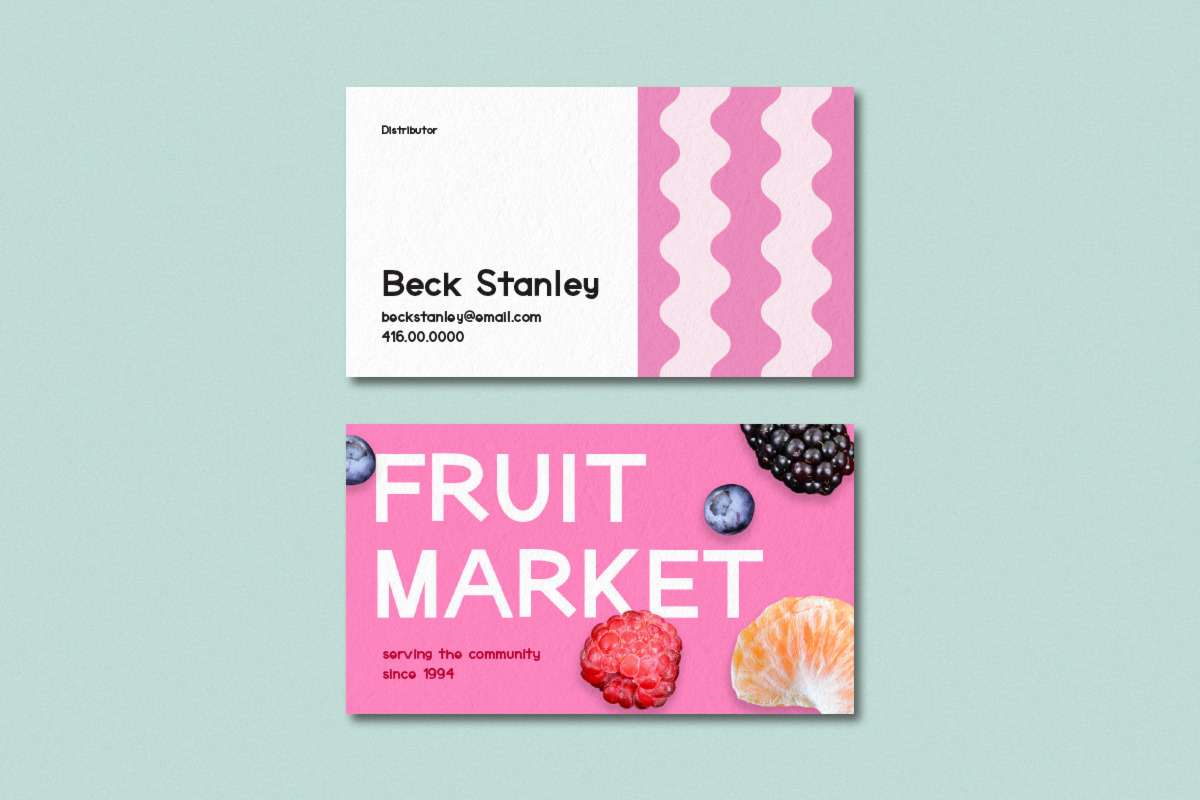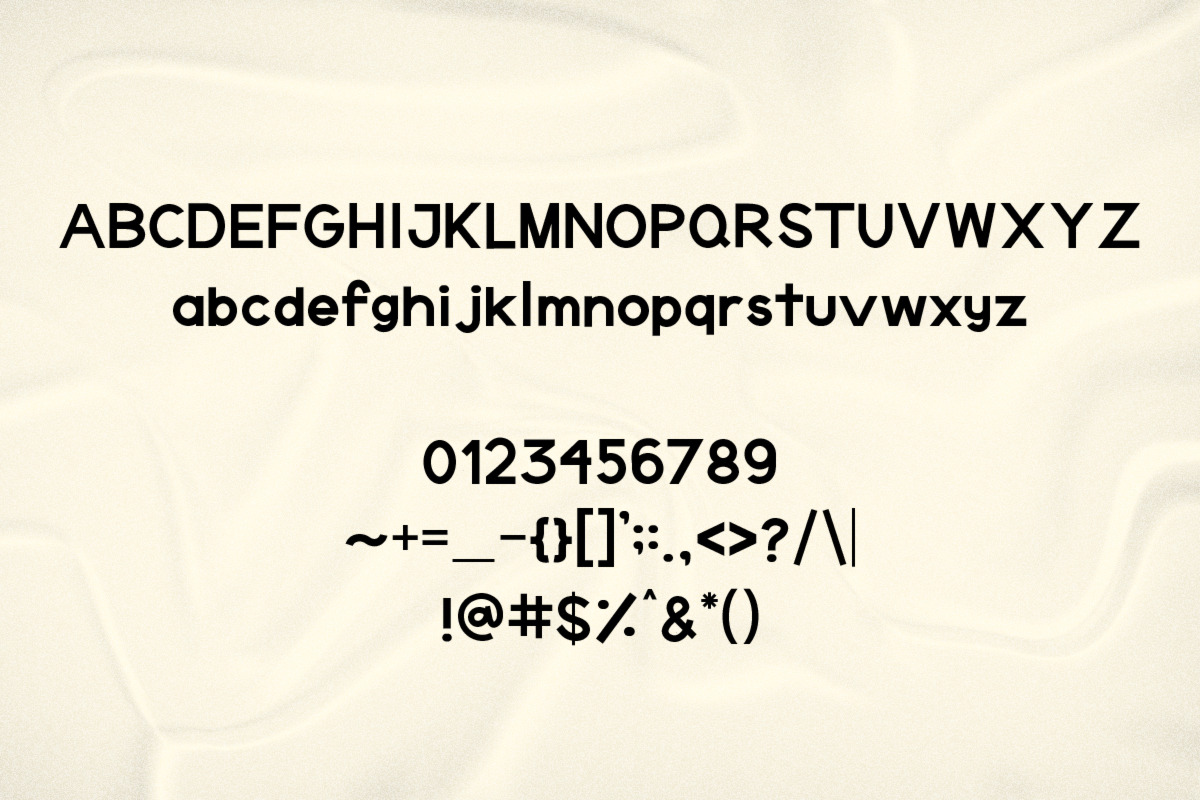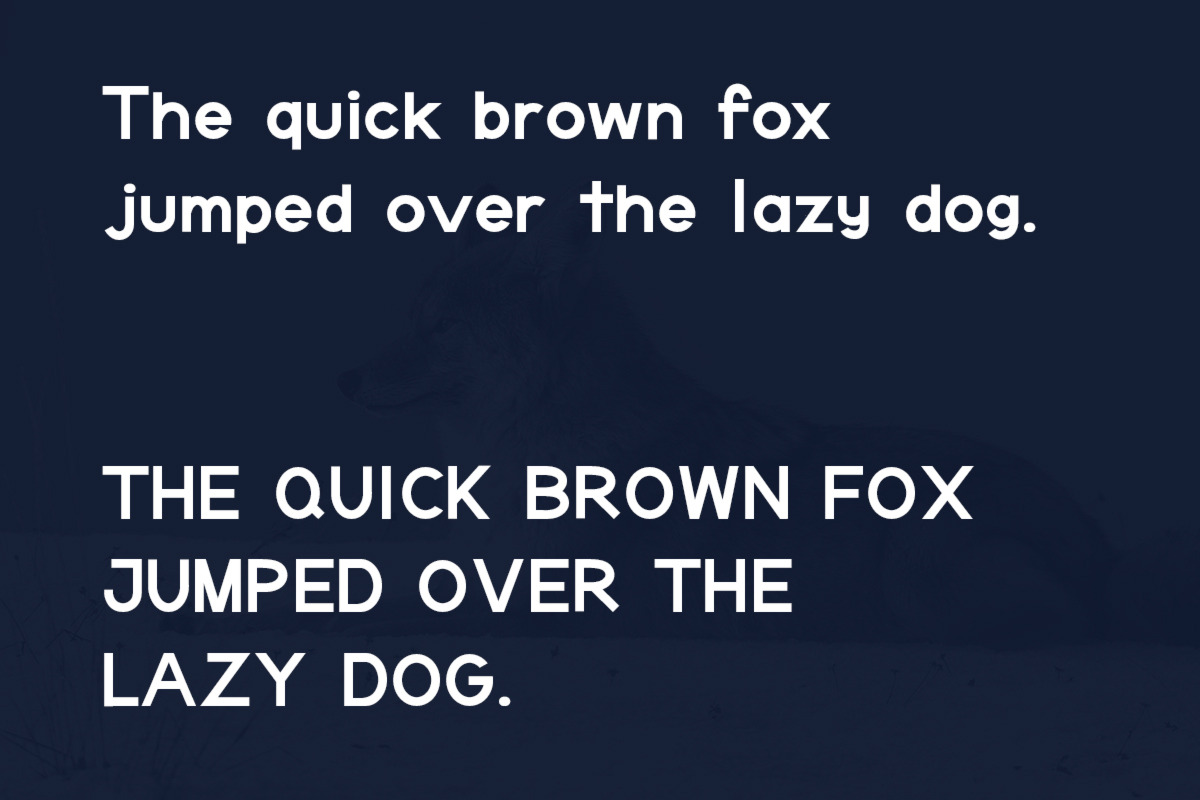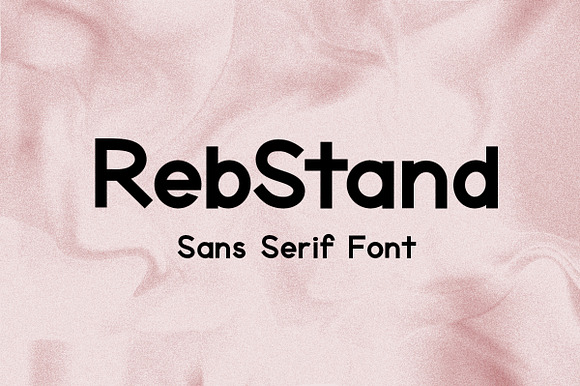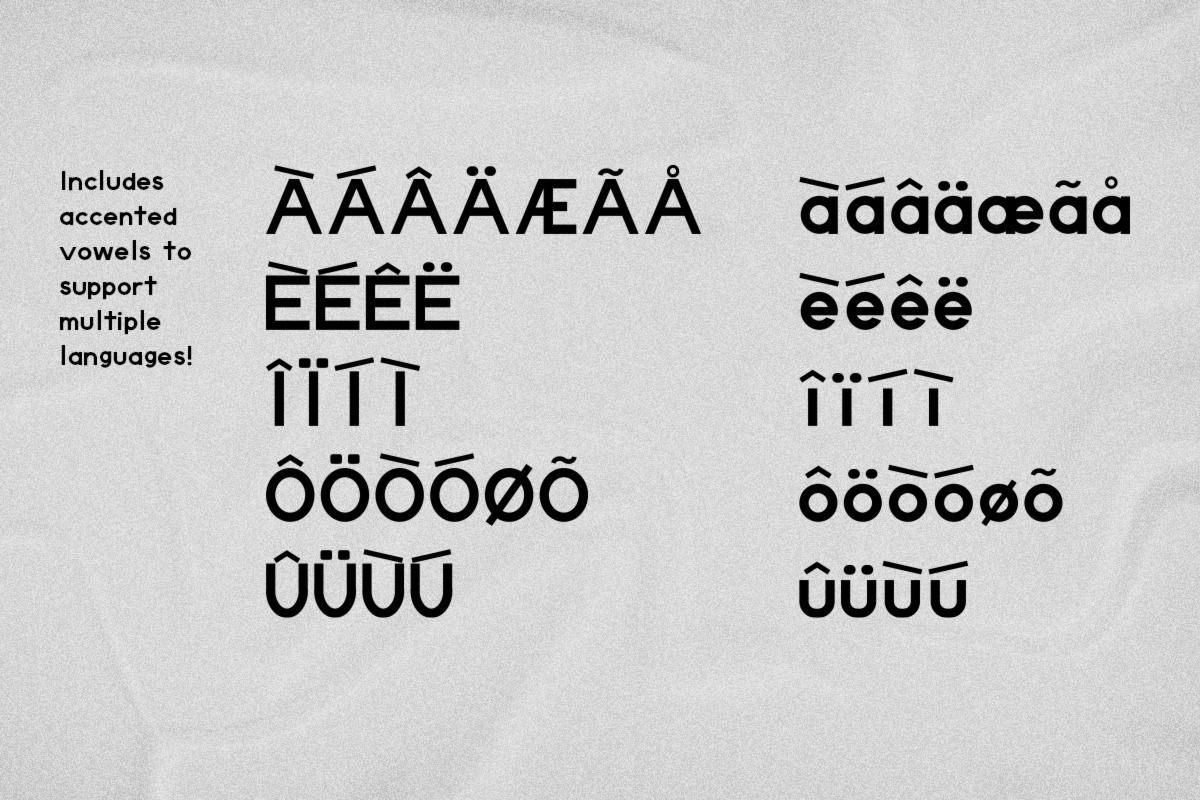
RebStand Sans Serif Typeface
RebStand is perfect for large or small copy, whether it is a title of a magazine or a page of paragraphs. It even supports multiple accents, so you can use RebStand with different languages! (ie. Spanish, French)
Thank you for checking out RebStand! RebStand is a uniquely hand-lettered sans-serif typeface that compliments and brings a unique touch to projects. This typeface maintains a structured approach, yet is able to convey a sense of friendliness and lightheartedness.